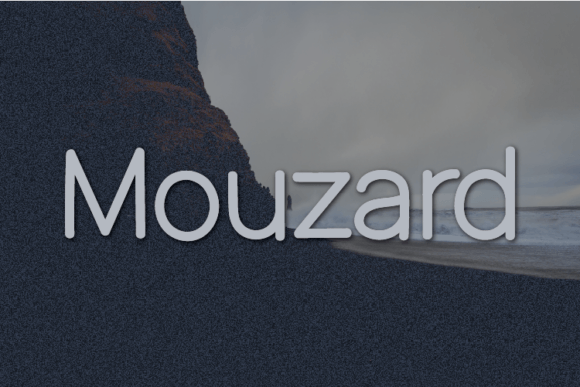
**Introducing Mouzard: The Quintessential Sans Serif Font for Striking Large Quotes**
In the realm of typography, where visual impact and emotional resonance converge, there lies a font that captivates the senses and transforms mere words into captivating expressions: Mouzard. This meticulously crafted sans serif font, the brainchild of the acclaimed Hanna Bie, transcends the boundaries of ordinary typefaces, propelling your designs to new heights of elegance and allure.
**Experience the Allure of Elegance and Clarity**
Mouzard's graceful curves and meticulously balanced strokes evoke a sense of sophistication and poise, effortlessly elevating your designs to a level of unparalleled distinction. Its clean lines and open counters ensure optimal readability, even at larger sizes, making it the perfect choice for capturing attention and leaving a lasting impression.
**Craft Statements That Stand the Test of Time**
Whether you're crafting awe-inspiring quotes, captivating headlines, or eye-catching branding elements, Mouzard possesses the inherent power to elevate your creations, imbuing them with an air of timeless elegance. Its versatility knows no bounds, seamlessly adapting to a myriad of design aesthetics, from classic and traditional to modern and contemporary.
**Effortless Harmony: A Font That Resonates**
The essence of Mouzard lies in its ability to harmonize effortlessly with your creative vision. Its carefully considered design ensures seamless integration into any project, complementing your design elements and enhancing their overall impact. Let Mouzard's inherent charm amplify your message, resonating with your audience on a profound level.
**Step into a World of Creative Possibilities**
With Mouzard as your creative ally, the possibilities are limitless. Embark on a journey of artistic expression, where your imagination takes center stage. Design breathtaking posters that capture the essence of your message, create social media graphics that ignite engagement, or craft captivating website headers that leave a lasting impression. The world of design awaits your transformation.
**Discover the Mouzard Difference**
Mouzard is not merely a font; it's an experience. It's an invitation to elevate your designs, to leave a lasting impression, and to embark on a creative journey that knows no bounds. Embrace the power of Mouzard and unlock a world of design possibilities that will set your work apart.